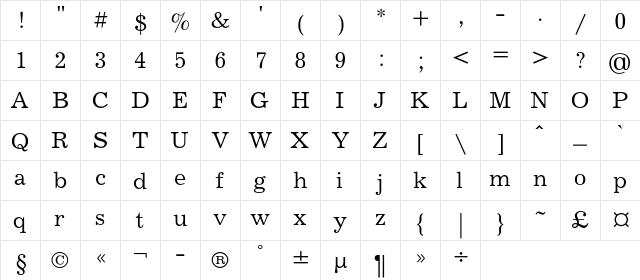
JournalC Regular
Design Context for JournalC Typeface
JournalC is a composed and adaptable typeface that performs quietly and consistently across a wide range of design contexts.